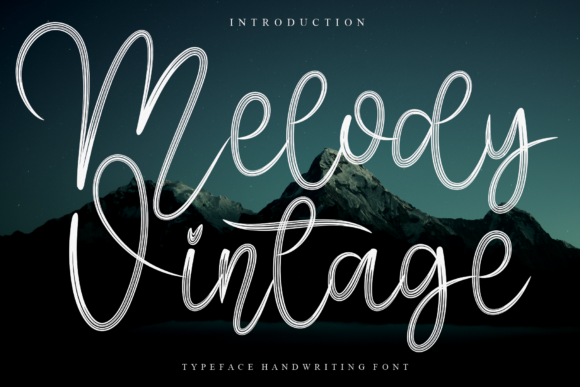
Melody Vintage Font
Dive into the realm of creativity with Melody Vintage Font, a script font that will ignite your designs with its enchanting charm. Its flowing lines and graceful curves evoke a sense of nostalgia, adding a touch of timeless elegance to your projects.
Step into a world where words dance with grace and beauty, where every letter tells a story. Melody Vintage Font is not just a collection of characters; it's an artistic expression that will transform your designs into captivating masterpieces.
With Melody Vintage Font, you'll discover a font that's as versatile as it is captivating. Its delicate strokes and elegant flourishes make it perfect for adding a touch of romance to wedding invitations, branding materials, and social media posts. Its playful and whimsical style will bring life to T-shirt designs, posters, and packaging, leaving a lasting impression on your audience.
Imagine the joy and excitement as your customers, friends, and loved ones receive your creations adorned with Melody Vintage Font. They'll be captivated by its intricate details and the heartfelt emotions it conveys. Whether you're a seasoned designer or just starting your creative journey, Melody Vintage Font will elevate your projects to new heights.
So, embark on this creative adventure with Melody Vintage Font, and let your designs sing with joy and enchantment. Discover the magic of this font and create a lasting impact on your audience. Embrace the beauty of Melody Vintage Font and let your creativity soar!